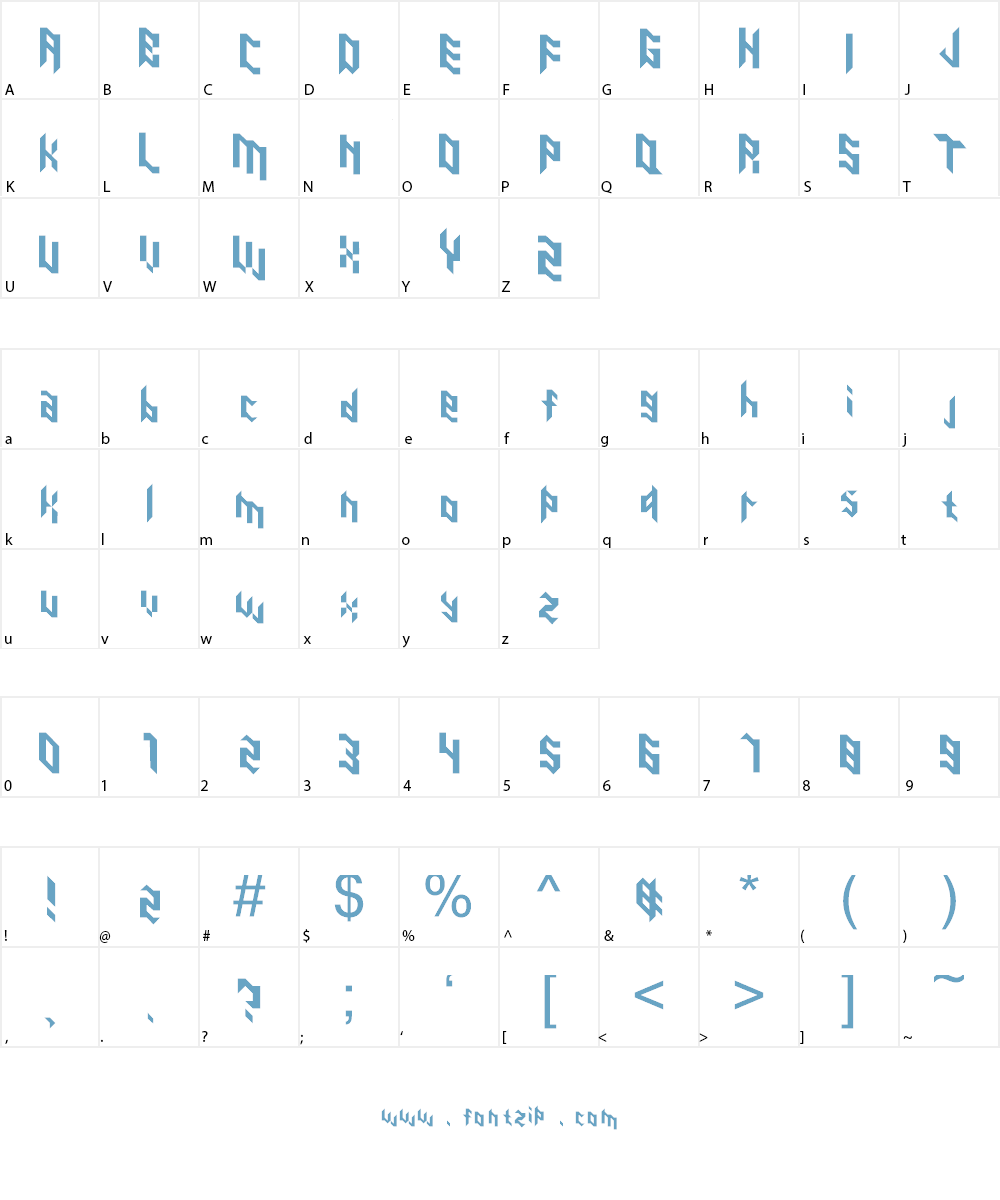
My very first font, made by a module of triangles that forms stairs. If you're creative enough, you can make it look like three-dimensional just by putting different colors on each letter's sides.